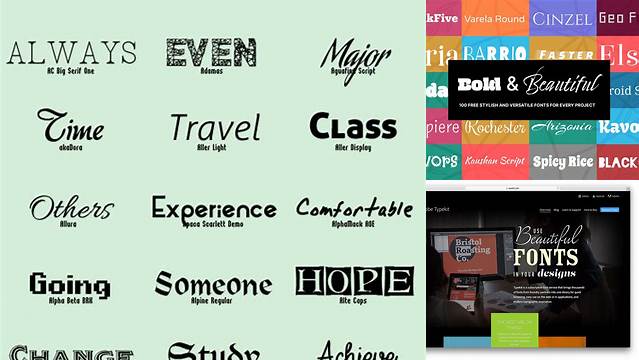
Free Font Packs: Reddit's Best Typography Resources
Hey everyone! Finding the right fonts can be a game-changer for your projects, whether you're designing a website, creating marketing materials, or just having fun with personal projects. Reddit is a goldmine for sharing and discovering awesome resources, and free font packs are no exception. Let's dive into some of the best places to find them and how to make the most of these typographic treasures. So, guys, get ready to elevate your design game!
Free Font Resources on Reddit
Reddit is a fantastic platform for discovering free font packs. Subreddits dedicated to design, typography, and graphic design often have users sharing their favorite resources. These resources can range from individual fonts to comprehensive font families, all available for free. One of the best things about finding fonts on Reddit is the community aspect. Users often provide feedback, usage tips, and even examples of how they've used the fonts in their own projects. This collaborative environment makes it easier to find fonts that suit your specific needs and preferences. Additionally, Reddit's voting system helps to highlight the most popular and well-regarded fonts, ensuring that you're accessing high-quality resources. You can also find links to external websites and repositories that offer a wide selection of fonts. Overall, Reddit serves as an invaluable hub for anyone looking to enhance their typographic toolkit without breaking the bank. Always double-check the licensing before using any font commercially to avoid potential legal issues.
Best Subreddits for Free Fonts
When it comes to finding free font packs, certain subreddits are absolute treasure troves. Consider checking out r/typography, a community dedicated to all things type-related. Users often share their favorite free fonts and discuss typographic trends. r/graphic_design is another excellent resource, where designers frequently post links to free font packs and offer advice on using them effectively. For those interested in web design, r/web_design can be a valuable source, with members sharing fonts suitable for online use. Don't forget about smaller, more niche subreddits, like those focused on specific design styles or software. These communities might have curated lists of fonts tailored to particular needs. When browsing these subreddits, use keywords like "free fonts," "font packs," or "typography resources" to narrow down your search. You can also filter posts by popularity or recency to find the most relevant content. Remember to engage with the community by asking questions, sharing your own discoveries, and providing feedback on the fonts you find. By actively participating, you'll not only expand your font collection but also connect with fellow designers and typographers.
Font Bundles vs. Individual Fonts
When searching for free font packs, you'll often encounter two main types of offerings: font bundles and individual fonts. Font bundles are collections of multiple fonts, often grouped together by style or theme. These bundles can be a great way to expand your typographic toolkit quickly, offering a variety of options for different design needs. However, it's essential to evaluate the quality and usability of each font within the bundle. Make sure that the fonts are well-designed and consistent in style, and that they come with the necessary licensing for your intended use. Individual fonts, on the other hand, offer a more focused approach. These are single font files that can be downloaded and used independently. While they may not provide the same variety as font bundles, they often offer higher quality and more specific design characteristics. When choosing between font bundles and individual fonts, consider your specific needs and preferences. If you're looking for a wide range of options and are willing to spend time evaluating each font, a bundle might be a good choice. If you prefer higher quality and more targeted designs, individual fonts may be a better fit. Remember to always check the licensing terms before using any font, regardless of whether it's part of a bundle or an individual offering.
Font Pairing Techniques
Effective font pairing is a crucial skill for any designer looking to create visually appealing and harmonious designs. When working with free font packs, it's essential to understand how to combine different fonts to achieve the desired effect. A good starting point is to choose fonts that complement each other in terms of style and weight. For example, you might pair a bold, sans-serif font for headings with a more delicate, serif font for body text. Alternatively, you can use fonts from the same font family but with different weights or styles. This approach can create a cohesive and balanced look. Avoid pairing fonts that are too similar, as this can create a visually monotonous design. Experiment with different combinations and pay attention to the overall visual impact. Tools like FontPair and Typewolf can provide inspiration and guidance on effective font pairings. Remember to consider the context of your design when choosing fonts. Different projects may require different font pairings to convey the desired message and mood. By mastering font pairing techniques, you can create designs that are visually appealing, legible, and effective in communicating your message.
Using Fonts in Web Design
When it comes to web design, choosing the right fonts is crucial for creating a visually appealing and user-friendly experience. With the abundance of free font packs available, it's easier than ever to find fonts that suit your website's style and brand. However, there are several factors to consider when selecting fonts for web use. First and foremost, ensure that the fonts are web-safe and optimized for online display. Web-safe fonts are those that are commonly pre-installed on most operating systems, ensuring that your website visitors will see the fonts as intended. Alternatively, you can use web fonts, which are hosted online and can be loaded directly into your website. Google Fonts is a popular resource for finding free, high-quality web fonts. When using web fonts, it's essential to optimize them for performance to avoid slowing down your website's loading time. Use font formats like WOFF and WOFF2, which are specifically designed for web use. Additionally, consider using CSS to specify fallback fonts in case the primary font fails to load. By carefully selecting and optimizing fonts for web use, you can create a website that is visually appealing, legible, and performs well across different devices and browsers.
Finding Display Fonts
Free font packs often include a variety of display fonts, which are specifically designed for headlines, titles, and other prominent text elements. Display fonts are typically more decorative and eye-catching than body text fonts, making them ideal for grabbing attention and conveying a specific mood or style. When searching for display fonts, consider the overall aesthetic of your project. Different display fonts can evoke different emotions and associations, so it's essential to choose fonts that align with your brand and message. For example, a bold, sans-serif display font might be suitable for a modern, tech-focused website, while a more ornate, serif display font might be better suited for a vintage-inspired design. Websites like FontSpace and DaFont offer a wide selection of free display fonts, ranging from classic styles to more experimental designs. When using display fonts, it's essential to use them sparingly and pair them with more neutral body text fonts to maintain readability. Additionally, consider the size and spacing of the display font to ensure that it is legible and visually balanced. By carefully selecting and using display fonts, you can create designs that are visually striking and effectively communicate your message.
Body Text Fonts
While display fonts grab attention, free font packs also need strong body text options for readability. Body text fonts are designed for extended reading, so legibility is paramount. Choose fonts with clear, simple letterforms and ample spacing. Serif fonts like Times New Roman and Garamond are traditionally used for print, while sans-serif fonts like Arial and Helvetica are common online. However, many modern fonts work well in both contexts. Consider factors like x-height (the height of lowercase letters) and contrast (the difference between thick and thin strokes). Higher x-height and moderate contrast generally improve readability. Test your chosen font at different sizes and on various devices to ensure it remains easy to read. Remember, the goal is to make the reading experience as comfortable as possible for your audience. A well-chosen body text font can significantly enhance the overall impact of your content.
Monospace Fonts
Monospace fonts, where each character occupies the same horizontal space, serve a unique purpose in design. While not as versatile as proportional fonts, they offer distinct advantages in specific contexts, such as coding, technical documentation, and creating a retro aesthetic. When exploring free font packs, keep an eye out for monospace options. These fonts can add a touch of authenticity and clarity to your projects. In coding environments, monospace fonts ensure that code aligns perfectly, making it easier to read and debug. In technical documentation, they can help to visually separate code snippets or command-line instructions from the surrounding text. For design projects, monospace fonts can evoke a sense of nostalgia or create a unique, minimalist look. When using monospace fonts, be mindful of their limitations. They may not be ideal for large blocks of body text, as the uniform spacing can be tiring on the eyes. However, when used strategically, monospace fonts can add a distinctive and functional element to your designs.
Script and Handwritten Fonts
For a touch of personality and warmth, script and handwritten fonts can be a great addition to your design toolkit. Many free font packs include these styles, which mimic the look of handwriting or calligraphy. However, it's important to use them judiciously. Script and handwritten fonts can add a personal touch to invitations, greeting cards, and logos, but they are generally not suitable for large blocks of body text. Legibility can be a challenge, especially with more ornate or stylized scripts. When selecting a script or handwritten font, consider the overall tone and message of your project. A playful, casual script might be perfect for a children's book, while a more elegant, formal script could be ideal for a wedding invitation. Pair these fonts with simpler, more legible fonts for body text to ensure that your message is clear and easy to read. Remember, the goal is to enhance your design, not to sacrifice readability for aesthetics.
Decorative and Display Fonts
Decorative and display fonts are the showstoppers of the typography world. Often found in free font packs, these fonts are designed to grab attention and make a statement. They come in a vast array of styles, from bold and geometric to whimsical and ornate. While they're not ideal for body text, they can be perfect for headlines, logos, and other prominent design elements. When choosing a decorative or display font, consider the overall mood and message of your project. A futuristic font might be perfect for a tech startup, while a vintage-inspired font could be ideal for a retro-themed design. Use these fonts sparingly, as they can easily overwhelm a design if overused. Pair them with simpler, more neutral fonts for body text to create a balanced and visually appealing composition. Remember, the goal is to enhance your design, not to distract from it. A well-chosen decorative or display font can add personality and flair to your projects.
Vintage and Retro Fonts
Vintage and retro fonts are a fantastic way to add a touch of nostalgia and authenticity to your design projects. These fonts, often included in free font packs, evoke the styles of past eras, from the Art Deco elegance of the 1920s to the groovy vibes of the 1970s. They can be perfect for creating logos, posters, and websites with a vintage or retro theme. When selecting a vintage or retro font, consider the specific era you want to evoke. Different fonts will convey different styles and moods. Pair these fonts with appropriate colors and graphics to create a cohesive and authentic look. Be mindful of legibility, especially with more stylized vintage fonts. Use them sparingly for headlines and other prominent design elements, and choose simpler, more legible fonts for body text. Remember, the goal is to capture the essence of a past era while maintaining readability and visual appeal. A well-chosen vintage or retro font can add character and charm to your designs.
Futuristic Fonts
Futuristic fonts are designed to convey a sense of innovation, technology, and forward-thinking. These fonts, often included in free font packs, typically feature clean lines, geometric shapes, and a minimalist aesthetic. They can be perfect for creating logos, websites, and marketing materials for tech companies, startups, and other businesses that want to project a modern and cutting-edge image. When selecting a futuristic font, consider the specific message you want to convey. Different fonts will evoke different aspects of the future, from sleek and sophisticated to bold and adventurous. Pair these fonts with modern colors and graphics to create a cohesive and visually striking design. Be mindful of legibility, especially with more abstract or stylized futuristic fonts. Use them sparingly for headlines and other prominent design elements, and choose simpler, more legible fonts for body text. Remember, the goal is to create a design that looks both innovative and professional. A well-chosen futuristic font can help you achieve that balance.
Grunge Fonts
Grunge fonts offer a raw, edgy aesthetic that can add a unique and rebellious touch to your designs. These fonts, sometimes found in free font packs, often feature distressed textures, rough edges, and a hand-drawn feel. They can be perfect for creating posters, album covers, and websites with an alternative or underground vibe. When selecting a grunge font, consider the specific message you want to convey. Different fonts will evoke different aspects of the grunge aesthetic, from gritty and urban to artistic and expressive. Pair these fonts with dark colors and distressed graphics to create a cohesive and visually striking design. Be mindful of legibility, as grunge fonts can sometimes be difficult to read. Use them sparingly for headlines and other prominent design elements, and choose simpler, more legible fonts for body text. Remember, the goal is to create a design that looks both authentic and impactful. A well-chosen grunge font can help you achieve that balance.
Geometric Fonts
Geometric fonts are characterized by their clean lines, precise shapes, and minimalist design. These fonts, often included in free font packs, are based on geometric forms like circles, squares, and triangles. They convey a sense of order, structure, and modernity. Geometric fonts are versatile and can be used in a variety of design projects, from logos and websites to posters and brochures. When selecting a geometric font, consider the specific mood you want to evoke. Different fonts will convey different aspects of the geometric aesthetic, from sleek and professional to playful and creative. Pair these fonts with bright colors and minimalist graphics to create a cohesive and visually appealing design. Be mindful of legibility, especially with more abstract or stylized geometric fonts. Use them sparingly for headlines and other prominent design elements, and choose simpler, more legible fonts for body text. Remember, the goal is to create a design that is both visually striking and easy to understand. A well-chosen geometric font can help you achieve that balance.
Condensed Fonts
Condensed fonts are narrower than standard fonts, allowing you to fit more text into a limited space. These fonts, sometimes found in free font packs, are useful for headlines, subheadings, and other design elements where space is at a premium. They can also be used to create a sense of height and drama. When selecting a condensed font, consider the specific purpose you have in mind. Different fonts will have different degrees of condensation, so choose one that fits your needs. Be mindful of legibility, as highly condensed fonts can sometimes be difficult to read. Use them sparingly for short blocks of text, and choose a font with good spacing and clear letterforms. Pair condensed fonts with wider fonts for body text to create a visual contrast. Remember, the goal is to make the most of your available space while maintaining readability and visual appeal. A well-chosen condensed font can be a valuable tool in your design arsenal.
Expanded Fonts
Expanded fonts, also known as extended fonts, are wider than standard fonts, giving them a more spacious and open feel. These fonts, which you might stumble upon in free font packs, can be used to create a sense of importance and presence. They're often employed in headlines, logos, and other design elements where you want to make a statement. When selecting an expanded font, think about the specific effect you want to achieve. Different fonts will have different degrees of expansion, so choose one that aligns with your design goals. Keep legibility in mind, as excessively expanded fonts can sometimes be challenging to read. Use them judiciously, especially for longer blocks of text, and ensure the font has adequate spacing and well-defined letterforms. Pairing expanded fonts with more condensed fonts for body text can create an interesting visual contrast, adding depth and dynamism to your design. Ultimately, the aim is to leverage the unique characteristics of expanded fonts to enhance visual impact while maintaining readability and overall aesthetic harmony.
Serif vs. Sans-Serif Fonts
Serif and sans-serif fonts are two fundamental categories of typefaces, each with distinct characteristics and applications. Serif fonts are distinguished by the small decorative strokes, or serifs, that extend from the ends of the letters. These fonts are often associated with tradition, elegance, and readability, making them a popular choice for body text in print. Sans-serif fonts, on the other hand, lack these serifs, resulting in a cleaner, more modern appearance. They are commonly used for headlines, logos, and web design, where their simplicity and clarity can enhance visual impact. When exploring free font packs, it's essential to understand the differences between serif and sans-serif fonts and how to use them effectively. Consider the overall tone and message of your project when choosing a font. Serif fonts can convey a sense of authority and trustworthiness, while sans-serif fonts can project a more contemporary and approachable image. Experiment with pairing serif and sans-serif fonts to create visual contrast and interest. However, be mindful of legibility and ensure that your font choices complement each other harmoniously. Ultimately, the best font choice depends on the specific needs and goals of your design project.
Color and Font Choice
The interplay between color and font choice is a critical aspect of effective design. The colors you use can significantly impact the way your fonts are perceived and how well they communicate your message. When selecting fonts from free font packs, consider how they will interact with your chosen color palette. Dark fonts typically work well on light backgrounds, providing high contrast and readability. Conversely, light fonts can be used on dark backgrounds to create a dramatic and eye-catching effect. However, it's essential to ensure that the contrast is sufficient to maintain legibility. Avoid using colors that are too similar, as this can make the text difficult to read. Experiment with different color combinations to find what works best for your project. Consider the emotional associations of different colors and how they align with your brand and message. For example, blue is often associated with trust and stability, while red can convey excitement and energy. By carefully considering the interplay between color and font choice, you can create designs that are both visually appealing and effective in communicating your message.
Font Size and Spacing
Font size and spacing are fundamental elements of typography that can significantly impact readability and visual appeal. When working with free font packs, it's crucial to pay attention to these details to ensure that your text is easy to read and visually balanced. Font size should be appropriate for the context of your design. Body text should be large enough to read comfortably, while headlines can be larger to grab attention. However, avoid using font sizes that are too large or too small, as this can make the text difficult to read. Spacing refers to the space between letters, words, and lines of text. Adjusting the spacing can improve readability and create a more visually pleasing design. Kerning refers to the space between individual letters, while tracking refers to the overall spacing between all letters in a block of text. Leading refers to the space between lines of text. Experiment with different font sizes and spacing to find what works best for your project. Use a grid system to ensure that your text is aligned consistently and that the spacing is visually balanced. By carefully considering font size and spacing, you can create designs that are both legible and visually appealing.
Kerning and Tracking
Kerning and tracking are two essential typographic adjustments that fine-tune the spacing between characters in a font. Although often overlooked, these subtle tweaks can significantly enhance the readability and visual appeal of your text, especially when working with fonts from free font packs. Kerning refers to the adjustment of space between individual pairs of letters. Some letter combinations, like "AV" or "To," may appear too far apart due to their shapes. Kerning corrects this by reducing the space between these pairs, creating a more balanced and harmonious appearance. Tracking, on the other hand, adjusts the overall spacing between all characters in a block of text. It's useful for tightening or loosening the overall density of the text, improving readability and visual consistency. When applying kerning and tracking, it's important to exercise subtlety. Overly aggressive adjustments can make the text appear unnatural or distorted. Use these techniques to refine the appearance of your text, paying close attention to the overall visual rhythm and balance. By mastering kerning and tracking, you can elevate the quality of your typography and create designs that are both professional and visually appealing.
Line Height and Leading
Line height, also known as leading, refers to the vertical space between lines of text. It's a crucial factor in determining the readability and overall visual appeal of your typography. When working with fonts from free font packs, it's essential to adjust the line height appropriately to ensure that your text is comfortable to read and visually balanced. The optimal line height depends on several factors, including the font size, font style, and length of the lines. Generally, longer lines of text require more line height to improve readability. Insufficient line height can make the text feel cramped and difficult to follow, while excessive line height can create a disconnected and disjointed appearance. Experiment with different line heights to find what works best for your project. A good starting point is to set the line height to around 1.5 times the font size. However, you may need to adjust this value depending on the specific characteristics of your font. By carefully considering line height and leading, you can create typography that is both legible and visually pleasing.
Font File Formats
Understanding font file formats is essential for ensuring compatibility and optimal performance when using fonts from free font packs. The most common font file formats include TrueType (TTF), OpenType (OTF), and Web Open Font Format (WOFF). TrueType fonts are a widely supported format that has been around for many years. They are compatible with most operating systems and design software. OpenType fonts are a more advanced format that offers several advantages over TrueType fonts, including support for a wider range of characters, ligatures, and stylistic alternates. OpenType fonts can also contain both PostScript and TrueType outlines. Web Open Font Format (WOFF) is a font format specifically designed for use on the web. It offers excellent compression and rendering performance, making it ideal for web design. When selecting fonts, it's generally best to choose OpenType fonts when possible, as they offer the most features and flexibility. However, ensure that the fonts are compatible with your design software and target platforms. For web design, use WOFF or WOFF2 fonts to optimize performance and ensure consistent rendering across different browsers.
Font Conversion Tools
Font conversion tools are invaluable for ensuring compatibility and optimal performance when working with fonts from free font packs. These tools allow you to convert fonts between different file formats, such as TrueType (TTF), OpenType (OTF), and Web Open Font Format (WOFF). This can be particularly useful when you need to use a font in a specific format for a particular project or platform. Several online and desktop font conversion tools are available, both free and paid. Some popular options include Font Squirrel's Webfont Generator, CloudConvert, and Online Font Converter. When using a font conversion tool, it's essential to choose a reputable and reliable option to ensure that the conversion process is accurate and that the resulting font files are of high quality. Be mindful of the licensing terms of the fonts you are converting. Some font licenses may prohibit or restrict font conversion. Always check the license agreement before converting a font. By using font conversion tools effectively, you can ensure that your fonts are compatible with your design software and target platforms, allowing you to create designs that look their best.
Font Embedding
Font embedding is the process of including font files within a digital document, such as a PDF or an EPUB. This ensures that the document will display correctly, even if the recipient does not have the specified fonts installed on their system. When using fonts from free font packs, it's crucial to understand how font embedding works and how to use it effectively. Font embedding is particularly important for documents that will be shared or distributed widely, as it ensures a consistent viewing experience for all recipients. Most design and document creation software, such as Adobe InDesign and Microsoft Word, offer options for embedding fonts. When embedding fonts, it's essential to consider the licensing terms of the fonts you are using. Some font licenses may restrict or prohibit font embedding. Always check the license agreement before embedding a font. Additionally, be mindful of the file size of your embedded fonts. Embedding too many fonts or fonts with large file sizes can significantly increase the overall size of your document. By understanding font embedding and using it responsibly, you can ensure that your documents display correctly and consistently across different devices and platforms.
Font Security
Font security is an increasingly important consideration in the digital age. As fonts become more sophisticated and integrated into various software and platforms, they also become potential targets for malicious attacks. When using fonts from free font packs, it's essential to be aware of the potential security risks and take steps to protect your system. One common security risk associated with fonts is font spoofing, where malicious actors replace legitimate fonts with counterfeit versions that contain malware. This can compromise your system and lead to data theft or other security breaches. To protect against font spoofing, it's crucial to download fonts only from trusted sources and to verify the integrity of the font files before installing them. Additionally, keep your operating system and design software up to date with the latest security patches. Some font formats, such as OpenType fonts, offer built-in security features that can help to prevent font spoofing. By being aware of the potential security risks and taking appropriate precautions, you can minimize the risk of font-related security breaches and protect your system from harm.
Font Management Software
Font management software is an essential tool for designers and typographers who work with a large number of fonts. These applications help you organize, activate, and deactivate fonts as needed, preventing font clutter and ensuring that your system runs smoothly. When using fonts from free font packs, font management software can be particularly valuable, as it allows you to easily manage and organize your growing font collection. Several font management software options are available, both free and paid. Some popular choices include FontBase, NexusFont, and RightFont. These applications offer a range of features, such as font preview, font tagging, font activation/deactivation, and font conflict detection. When choosing font management software, consider your specific needs and budget. Free options may be sufficient for basic font management, while paid options often offer more advanced features and support. By using font management software effectively, you can keep your font collection organized, prevent font conflicts, and ensure that your fonts are always available when you need them.
Creating Your Own Font Packs
Creating your own font packs can be a fun and rewarding way to curate a collection of fonts that perfectly suit your design style and needs. While finding free font packs online is convenient, building your own allows for greater customization and control. Start by identifying the types of projects you typically work on and the fonts that you find yourself using most often. Group these fonts together based on style, theme, or purpose. Consider including a variety of font styles, such as serif, sans-serif, script, and display fonts, to provide a well-rounded collection. Organize your font packs in a clear and logical manner, using descriptive names and tags to make them easy to find and use. You can create separate font packs for different types of projects, such as web design, print design, or logo design. Share your font packs with other designers or even sell them online to generate income. By creating your own font packs, you can build a valuable resource that reflects your unique design sensibility and enhances your creative workflow.